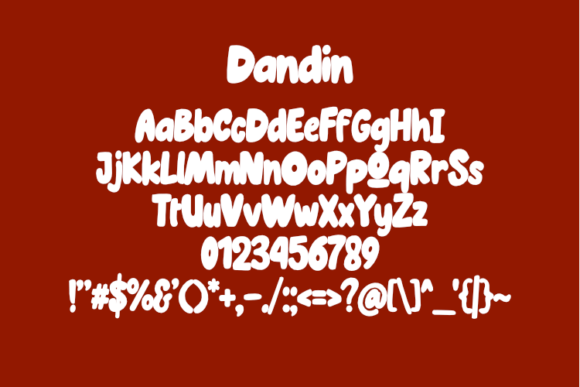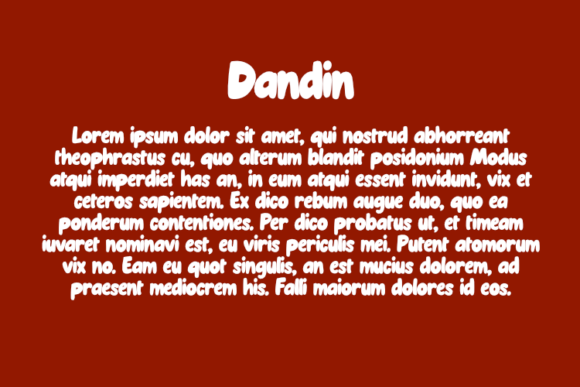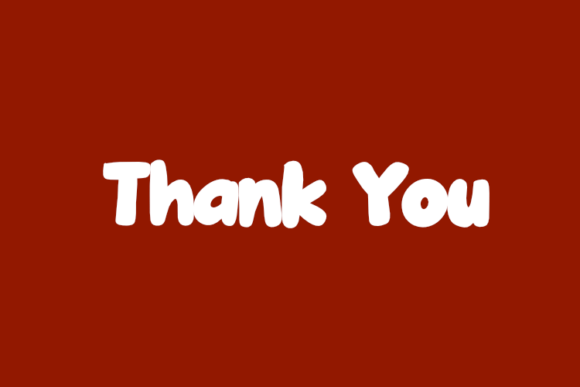
Unveiling Dandin: The Ultimate Typeface for Designers and Crafters
In the world of design, a font can make all the difference in bringing a creative vision to life. Introducing Dandin, a dynamic typeface that embodies artistic versatility, designed to elevate your design endeavors to new heights. Whether you’re a seasoned designer or a crafty enthusiast, Dandin is the perfect companion for your creative journey.
What is Dandin?
Dandin is a thoughtfully crafted typeface, specifically designed to cater to a wide range of design applications, from apparel design to product branding. Its unique blend of style and functionality makes it an ideal choice for designers and crafters seeking a font that can adapt to their diverse needs.
Key Features of Dandin
- Artistic Versatility: Dandin boasts a distinctive aesthetic that seamlessly blends with various design styles, ensuring your creations stand out with a unique flair.
Dandin offers a multitude of benefits for designers and crafters, making it an indispensable asset in their creative toolkit:
- Consistent Branding: The typeface ensures consistent branding across various design applications, helping you establish a strong visual identity.
- Endless Creative Possibilities: Dandin’s versatility opens up a world of creative possibilities, empowering you to experiment with different design styles and push the boundaries of your imagination.
Applications of Dandin
Dandin’s adaptability makes it suitable for a wide range of design applications, including:
- Apparel Design: Create stunning apparel designs that showcase your brand’s personality and style.
- Product Branding: Elevate your product branding with Dandin’s unique aesthetic, setting your products apart from the competition.
- Graphic Design: Use Dandin to add a touch of sophistication and elegance to your graphic design projects.
Why Choose Dandin?
In a world where design is an ever-evolving landscape, Dandin stands out as a reliable and versatile typeface that can keep up with your creative demands. Here are just a few reasons why you should choose Dandin:
- Unique Aesthetic: Dandin’s distinctive style ensures your designs stand out in a crowded market.
Dandin is more than just a typeface – it’s a creative companion designed to help designers and crafters bring their vision to life. With its artistic versatility, fit-all aesthetics, and comprehensive file bundle, Dandin is the ultimate tool for elevating your design endeavors. Join the world of Dandin and unlock a world of creative possibilities.